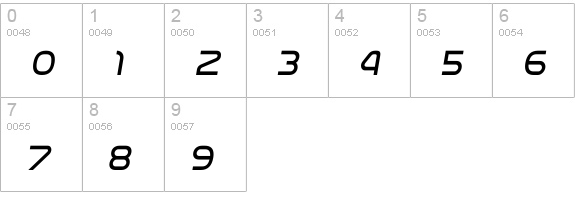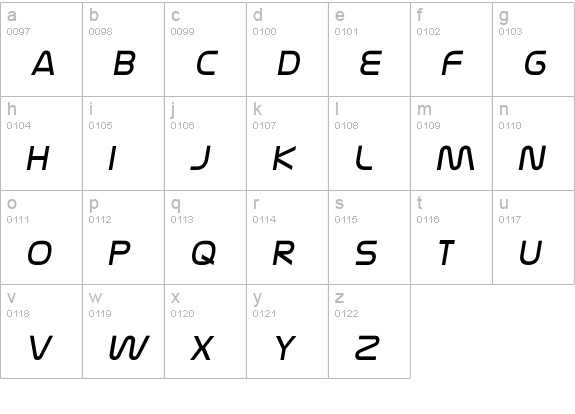
Nasalization Light Italic Font Details
Nasalization Light Italic is a refined, elegant, italic variant in the Nasalization typeface family \xE2\x80\x94 well suited to elegant body text, refined sub-headings, and luxury branding.
Nasalization Light Italic font is a sleek and modern typeface that combines elements of geometric shapes with a touch of elegance. Its light weight and italic style give it a unique and dynamic appearance, making it perfect for use in a variety of design projects. This font is not only stylish and eye-catching, but it also conveys a sense of sophistication and creativity. Whether you are designing a website, creating a logo, or working on a branding project, Nasalization Light Italic font is sure to make a bold statement. Best of all, Nasalization Light Italic font is available for free download at FontsMarket.com. This means that you can easily access this versatile and striking typeface without breaking the bank. Don't miss out on the opportunity to elevate your designs with the modern and captivating Nasalization Light Italic font today!